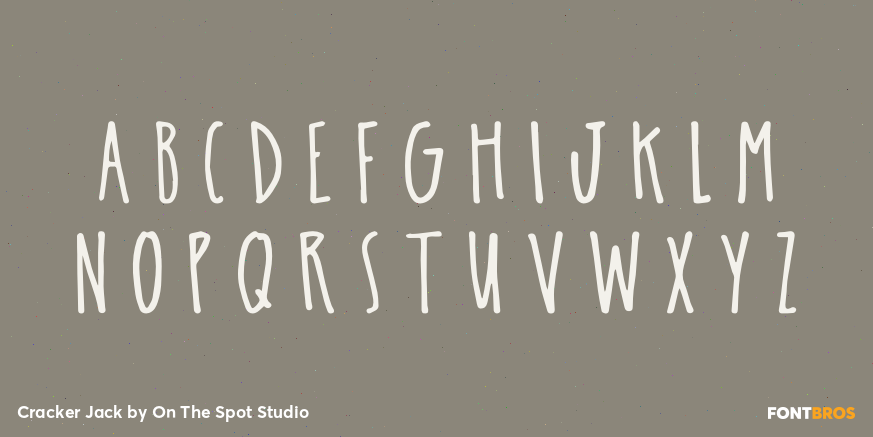
Cracker Jack
Font Family by On The Spot Studio
tall and skinny, CrackerJack is a super fun font to use for journaling, your website, your logo, your card designs, etc!